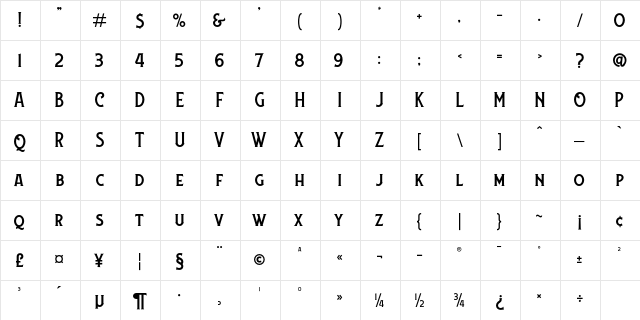
Lansdowne DEMO Regular
| Foundry | Twicolabs Fontdation |
| Designer | Twicolabs Fontdation |
Design Context for Lansdowne DEMO Typeface
Lansdowne DEMO offers clean, dependable letterforms without strong stylistic allegiance, making it a practical choice for designers who need flexibility.
Pro Tip: Pair Lansdowne DEMO with a font of contrasting weight or personality to build a more expressive typographic hierarchy.